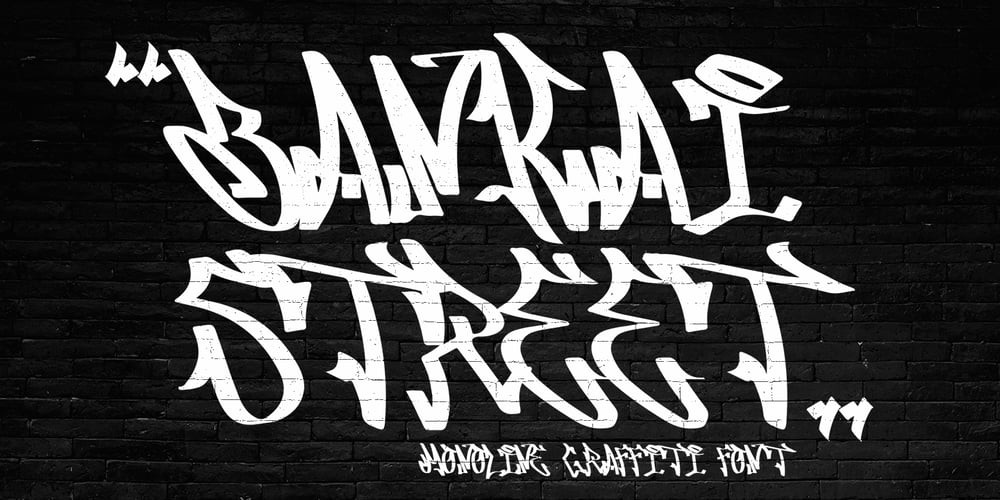
Bankai Street Font Family was designed by Sipanji and published by Sipanji21. Bankai Street contains 1 styles and family package options. Bankai Street – Realistic Monoline Handwritten Graffiti FontThis font designed so that users can use it more easily and make graffiti designs easier. Bankai Street is very suitable for use in various media such as; packaging, logos, labels, posters, shirt designs, bulletins, typography, and many other media, especially with graffiti look.